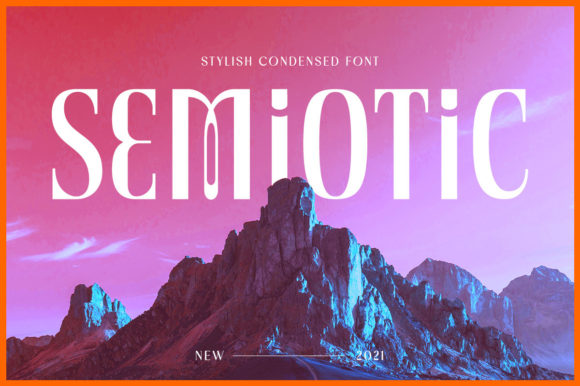
How Semiotic Transforms Campaign Design with Clean, Modern Typography
As I sat in my studio, finalizing the visuals for a new product launch, I knew the right font could make or break the campaign. That’s where Semiotic stepped in—a Display Fonts that brought clarity, elegance, and impact to every design element. With its condensed style, Semiotic isn’t just a typeface; it’s a strategic tool for marketers and creators looking to elevate their visual storytelling.
Semiotic for Wedding Invitations and Elegant Branding
One of the first projects I used Semiotic for was a wedding invitation series. The client wanted something timeless yet modern, something that would reflect both sophistication and personality. Semiotic’s clean lines and elegant curves made it perfect for the header text, while its condensed form allowed for more text to fit without sacrificing readability. It became the anchor of the entire design set, from the envelope to the digital teaser cards.
Using Semiotic for formal invitations like weddings or corporate events adds a layer of professionalism that aligns with brand identity. Its versatility means it can work equally well in print or digital formats, making it ideal for multi-platform campaigns. Whether you’re designing a physical invite or a social media post, Semiotic ensures your message is clear and impactful.
Semiotic for Instagram Posts and Social Media Consistency
When preparing a week-long Instagram content series for a seasonal sale, I needed a font that would maintain consistency across all posts. Semiotic’s structured form and strong legibility made it an excellent choice for headlines and callouts. It worked seamlessly with the brand’s color palette, creating a cohesive look that resonated with the target audience.
For social media, readability is key—especially on small screens and fast-scrolling feeds. Semiotic’s condensed style allows for shorter headlines without losing clarity, which is crucial for engagement. I paired it with a clean sans serif font for body text, ensuring a balanced hierarchy that guides the viewer’s eye naturally through the content.
Semiotic for YouTube Thumbnails and Webinar Promotions
Designing a thumbnail set for a webinar promotion required a font that stood out at a glance. Semiotic’s bold weight and sharp edges made it perfect for the main headline, drawing attention immediately. I used it alongside a modern sans serif for supporting text, creating a dynamic contrast that enhanced visual appeal.
With its display characteristics, Semiotic is ideal for thumbnails and other high-visibility assets. It works especially well on dark backgrounds, where its light strokes create a striking effect. When used in combination with a complementary font, it helps establish a strong brand presence across digital platforms.
Semiotic for Email Banners and Online Shop Campaigns
Email marketing is all about conversion, and the right typography can influence that significantly. For an online shop campaign, I chose Semiotic for the subject line and promotional banners. Its condensed form allowed for concise messaging, while its stylish appearance added a touch of luxury that aligned with the brand’s premium positioning.
In email design, Semiotic’s legibility on both light and dark backgrounds is a major advantage. It also performs well in small previews, ensuring that even when the email is skimmed, the key message remains visible. Pairing it with a simple sans serif for body text maintains a clean, professional look that supports the campaign’s goals.
Semiotic for Packaging and Brand Identity
When working on a packaging design project, I knew the font would play a critical role in brand recognition. Semiotic’s refined structure and elegant feel made it a natural fit for the logo and tagline. It helped convey the brand’s values—modern, sophisticated, and trustworthy.
For packaging and editorial design, Semiotic offers a balance between formality and approachability. Its condensed form allows for creative use in labels and branding elements, while its versatility makes it suitable for both print and digital applications. It’s a font that speaks to quality and craftsmanship, making it a valuable asset in any brand’s toolkit.
Semiotic for Mobile Optimization and Fast-Scrolling Feeds
With mobile usage dominating digital consumption, optimizing typography for smaller screens is essential. Semiotic’s compact structure and clear letterforms ensure readability even on tiny devices. I tested it across various screen sizes and found it performed exceptionally well, maintaining its impact without sacrificing legibility.
Whether it’s a social media post, a web banner, or a mobile ad, Semiotic’s design adapts well to different environments. Its strong visual hierarchy helps guide the user’s attention, making it an effective choice for campaigns that rely on quick engagement and instant recognition.
Semiotic for Font Pairing and Creative Typography Systems
Font pairing is an art, and Semiotic opens up many possibilities. When used with a clean sans serif, it creates a modern, minimalist aesthetic. Pairing it with a serif font adds a touch of elegance, while combining it with a script or handwritten font introduces a more personal, artistic feel.
As a Display Fonts, Semiotic is designed to stand out, making it ideal for headlines, titles, and decorative elements. It complements other fonts by adding structure and sophistication, helping to build a cohesive typographic system that enhances overall design quality.
Semiotic for Digital Assets and Commercial Use
Before using Semiotic in any commercial project, I always check the included styles, alternates, ligatures, weights, and file formats. These features ensure flexibility and adaptability across different design needs. Its support for multilingual characters is another plus, making it suitable for global campaigns.